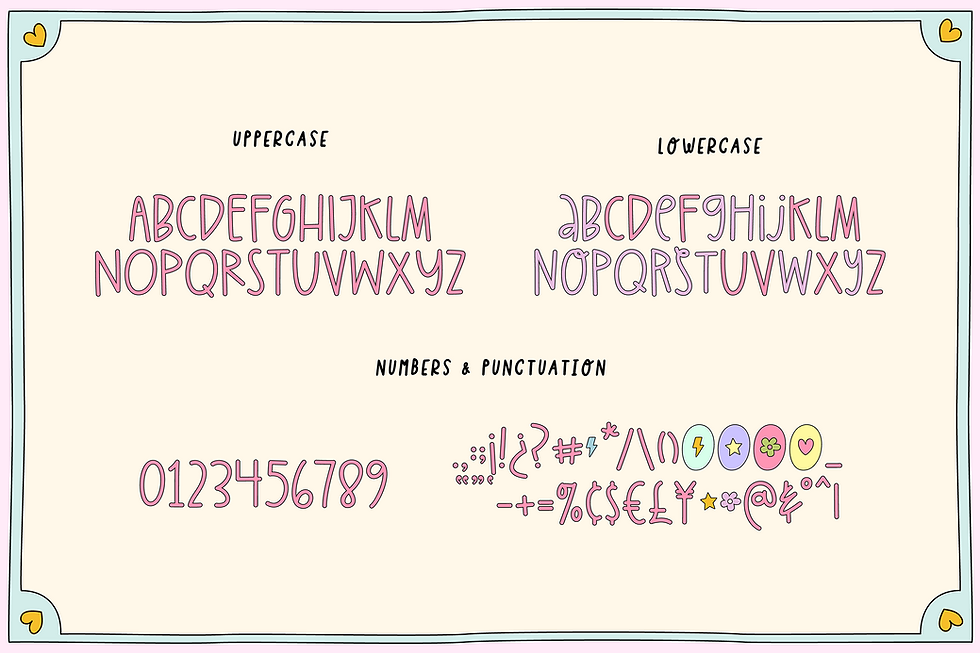
FAVORITE MOMENTS is a tall and cute playful font.
β Most accent characters included
β· Use the 8 symbols included to make cute compositions.
- Period centered symbol Β· β Lightning
- Greater > β Flower
- Less < β Star
- Logical not Β¬ β Heart
- Bracket left [ β O with flower
- Backet right ] β O with heart
- Left Curly Bracket { β O with lightning
- Right Curly Bracket } β O with star
β· MIX THE UPPERCASE WITH THE LOWERCASE CHARACTERS TO GET A UNIQUE RESULT IN YOUR DESIGNS